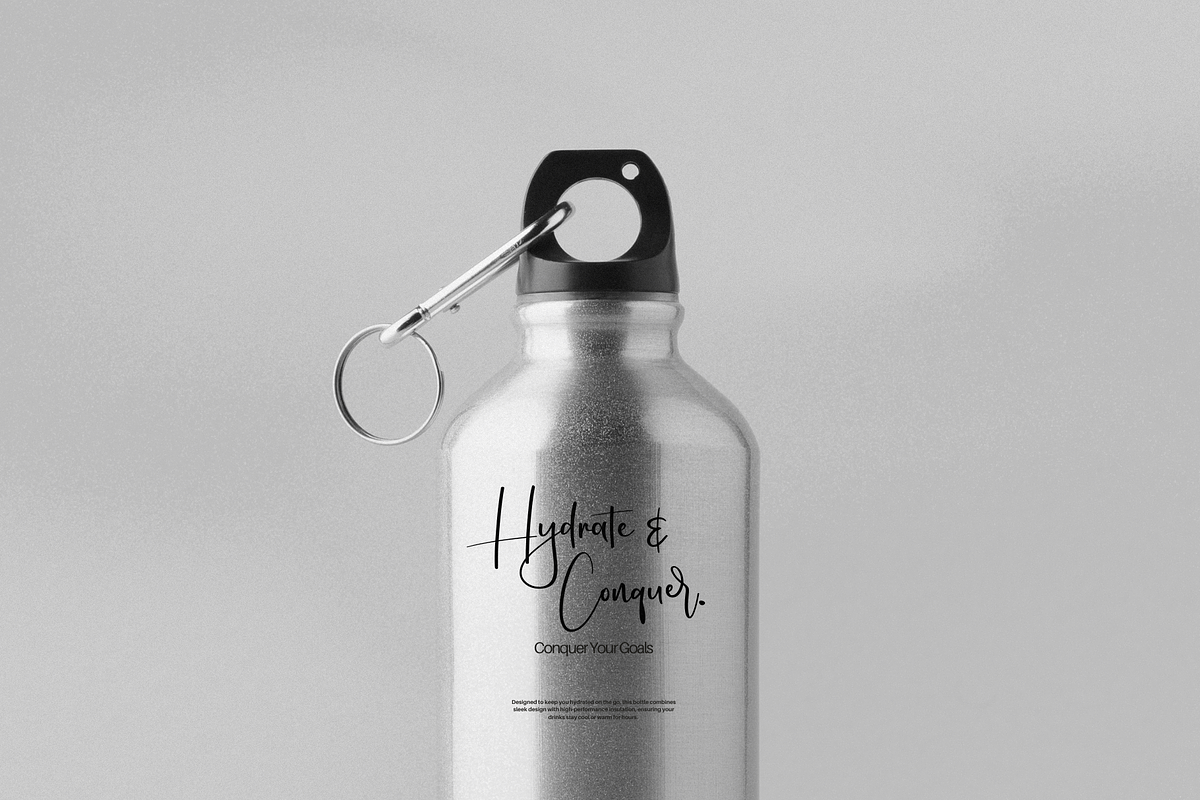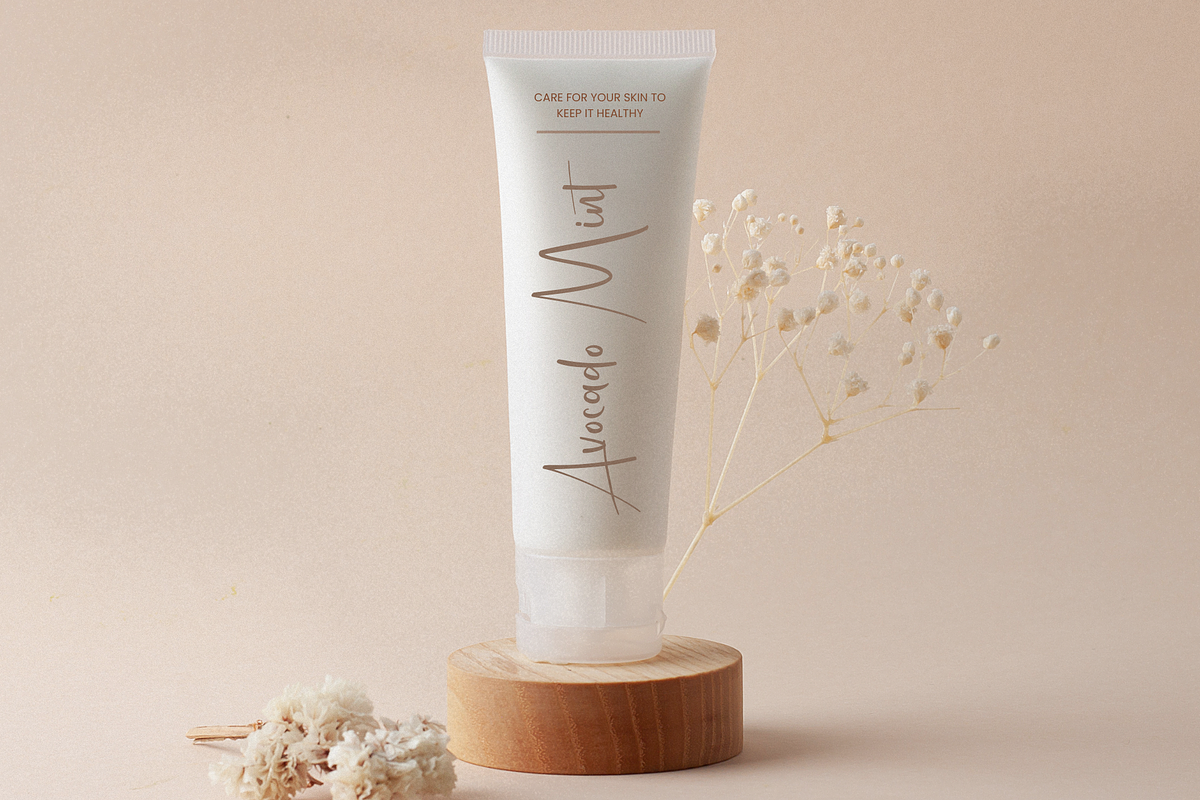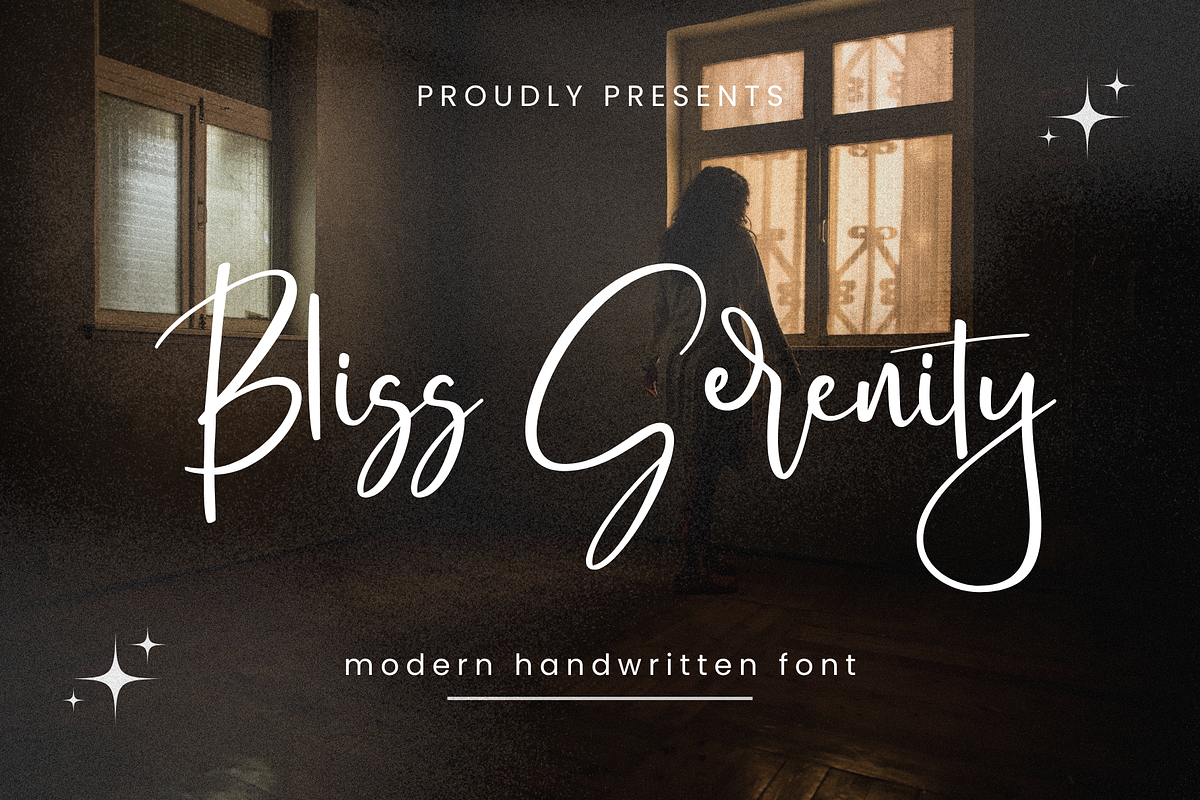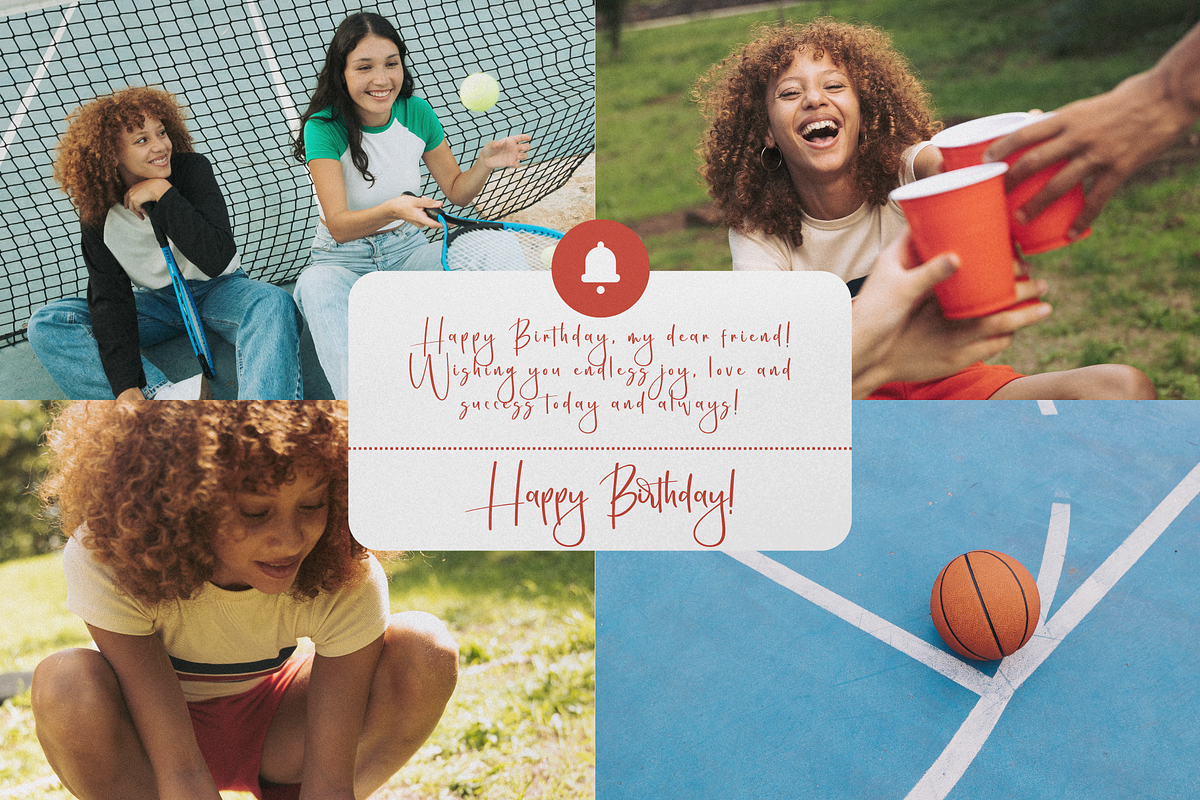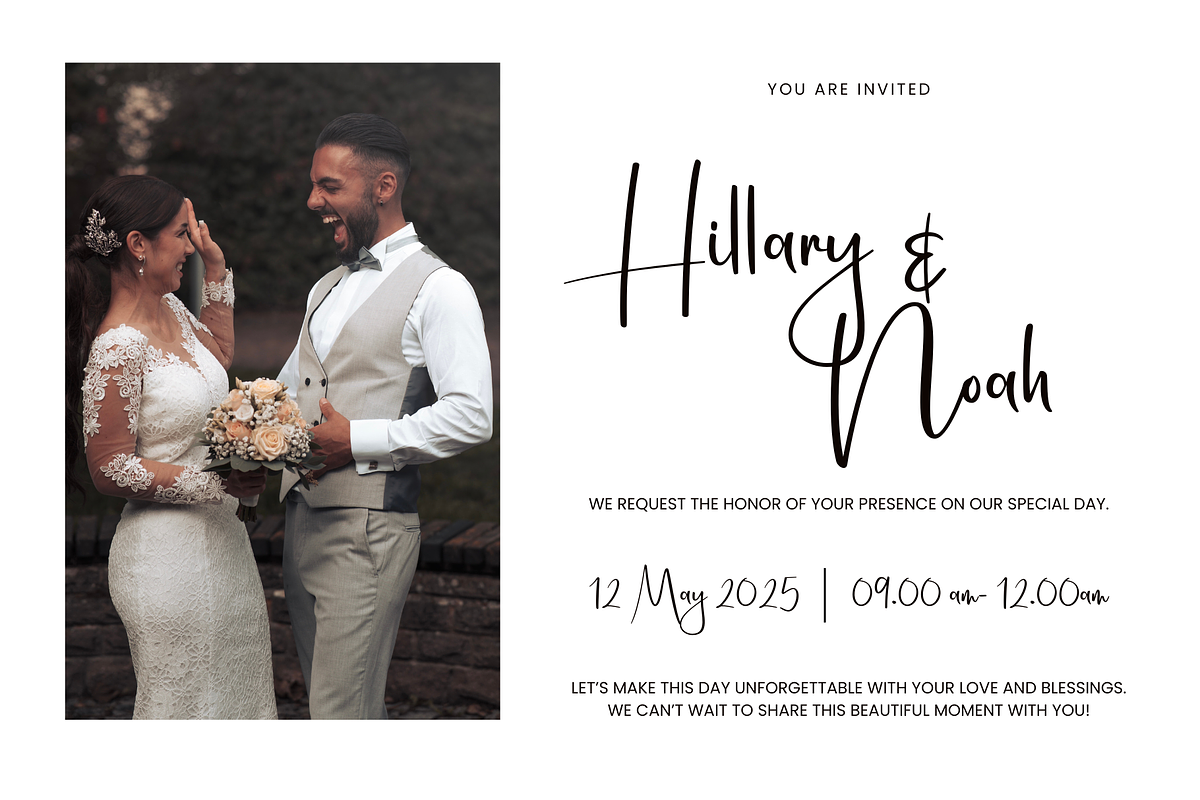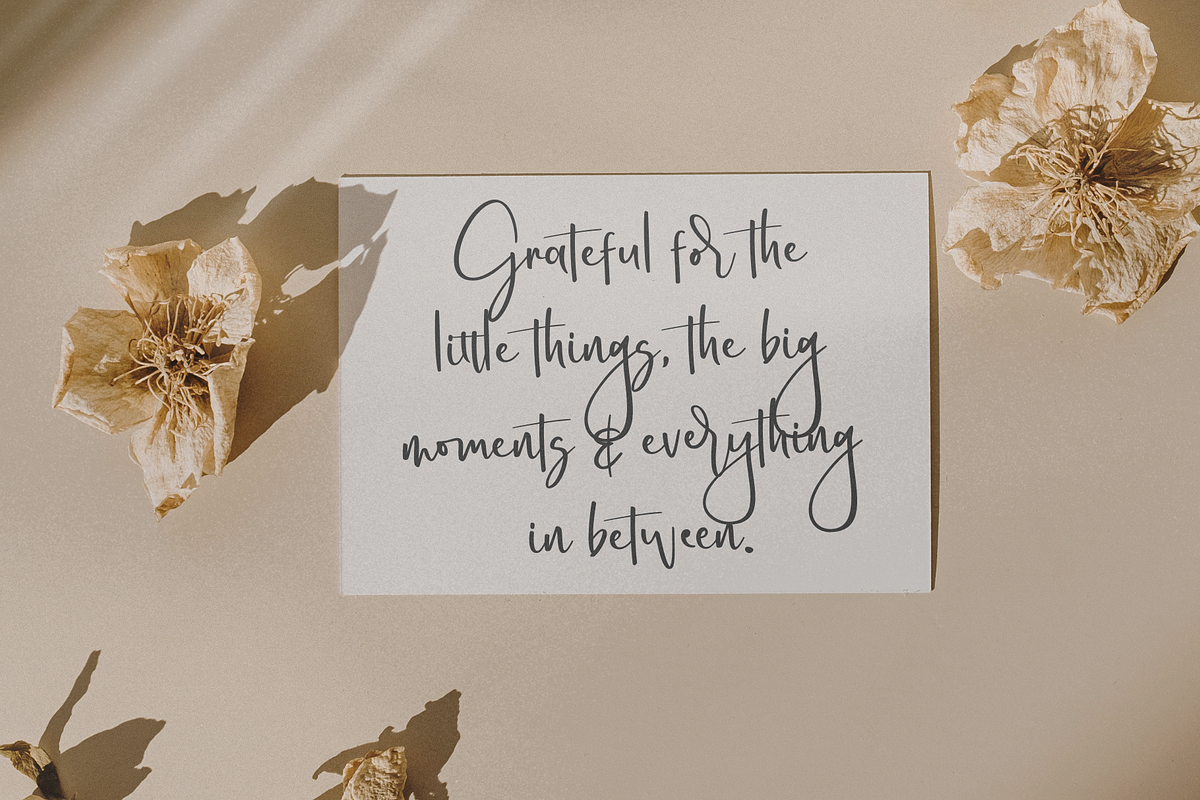
Bliss Serenity
Bliss Serenity Script embodies a chic and refined handwriting style, featuring graceful, flowing curves and a subtle touch of inky elegance. Its natural and versatile design makes it an excellent choice for bringing charm and sophistication to your projects.
Bliss Serenity Script is ideal for logo designs, branding materials, wedding stationery, social media visuals, advertisements, packaging, product labels, photography watermarks, invitations, and any project that calls for an authentic handwritten feel.